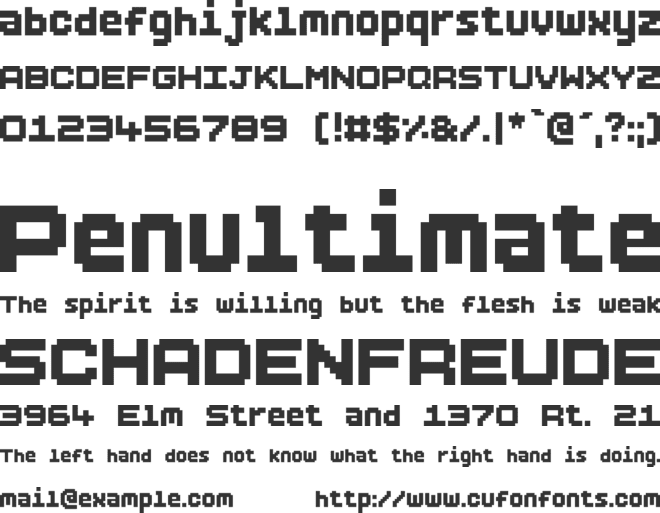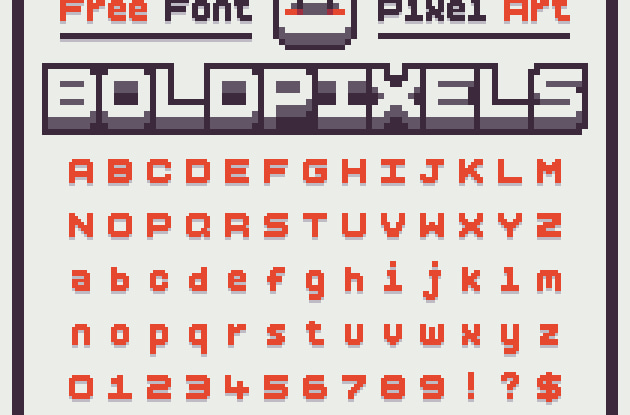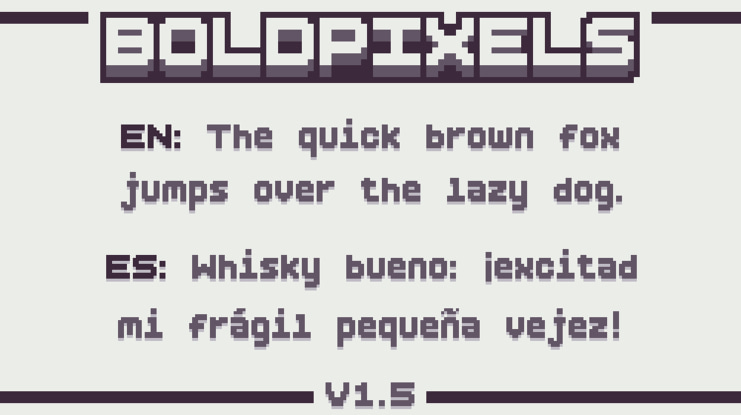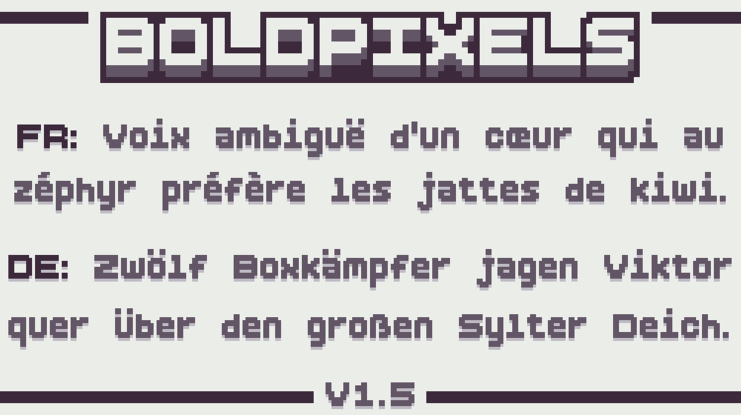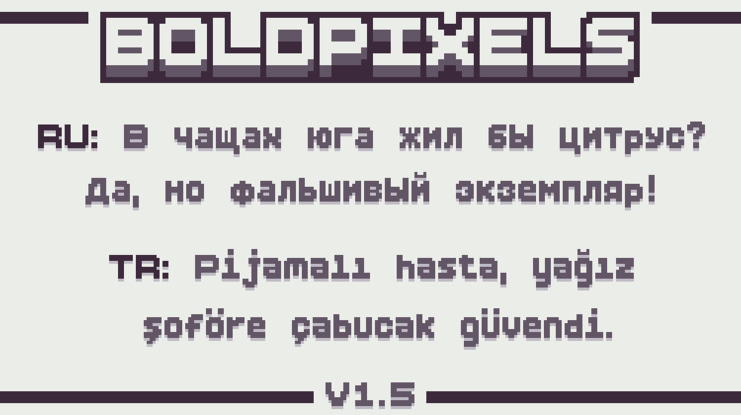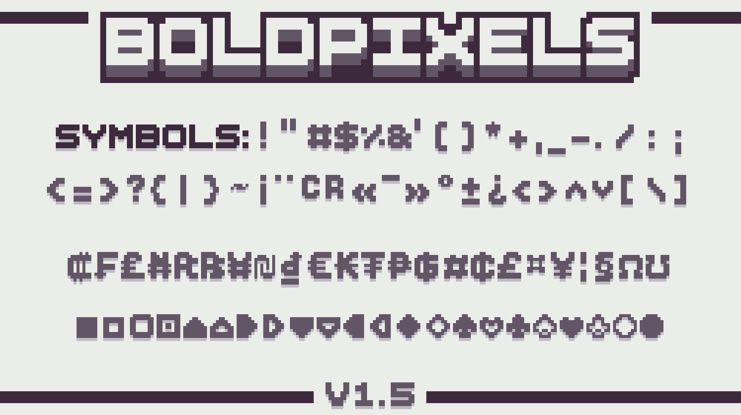
BoldPixels Font Family
A Charming Pixel Font for your Projects!
BoldPixels is a handcrafted 16 pixels font designed to add a retro touch to your projects. Its clear design makes it perfect for game developers, designers, and creators looking for a unique pixel perfect font.
The latest 1.5 Version is a major update and now feature more than 1500 characters!